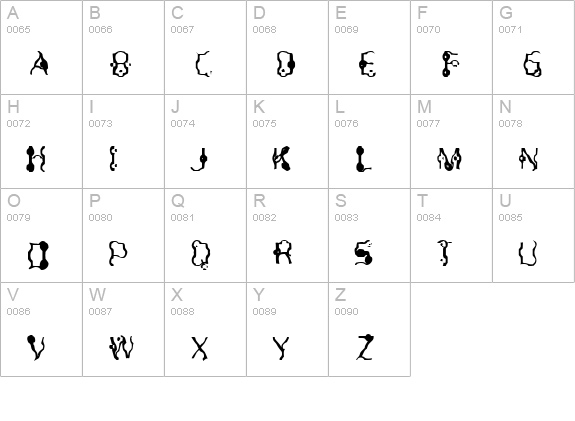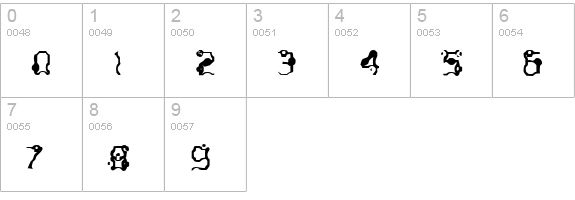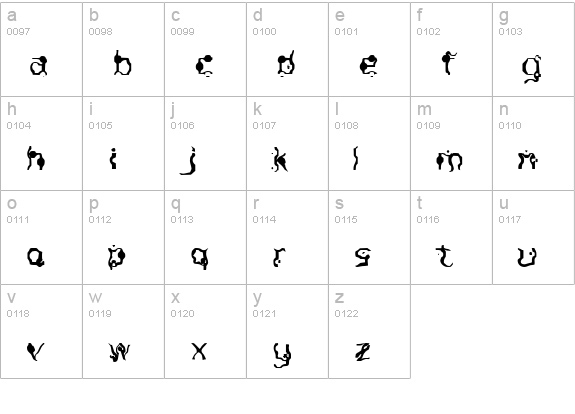
Purple Burple Font Details
Introducing Purple Burple font, a whimsical and playful typeface that will add a touch of fun to your designs. This unique font features quirky and irregular letter shapes that exude creativity and originality. Whether you're working on a poster, invitation, or branding project, Purple Burple is sure to make a statement. And the best part? Purple Burple font is completely free to download at FontsMarket.com. So why wait? Add a pop of color and personality to your designs with Purple Burple font today!